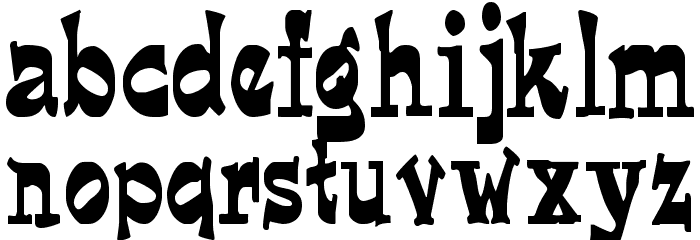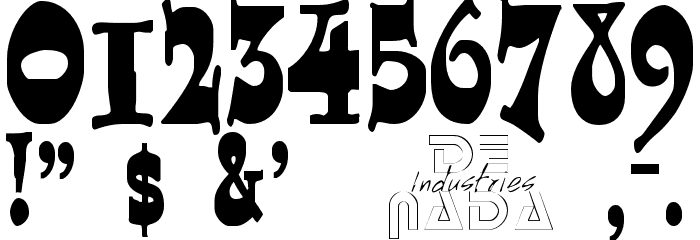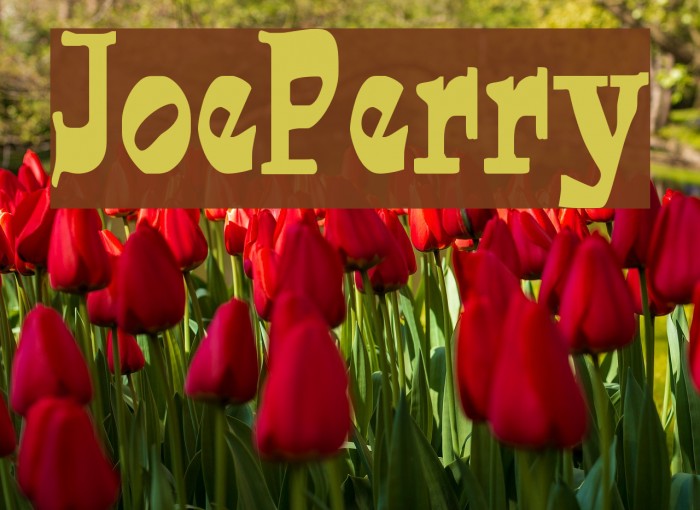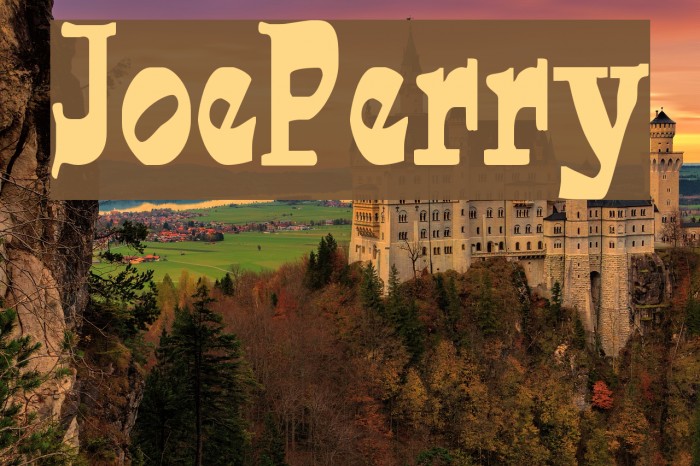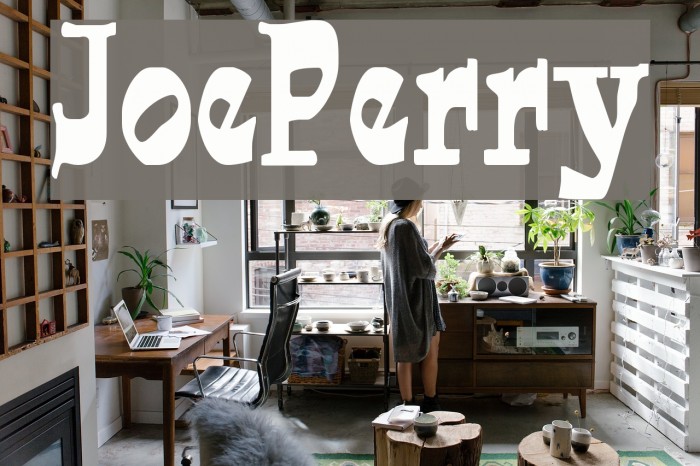
JoePerry Font
This font exhibits a bold and playful style with a distinctive, quirky character. The letters are unevenly weighted, giving them a hand-drawn, whimsical appearance. The uppercase letters are bold and slightly irregular, while the lowercase letters maintain a similar playful aesthetic. The numbers are bold and consistent with the overall style, featuring exaggerated curves and angles. Special characters are creatively designed, adding to the font's unique charm. This font is ideal for projects that require a fun and informal touch.
- Proposed Projects: Ideal for children's books, playful branding, party invitations, and creative posters.
- Overall Style: Playful, Whimsical
- Use Case: Headlines, Posters, Branding